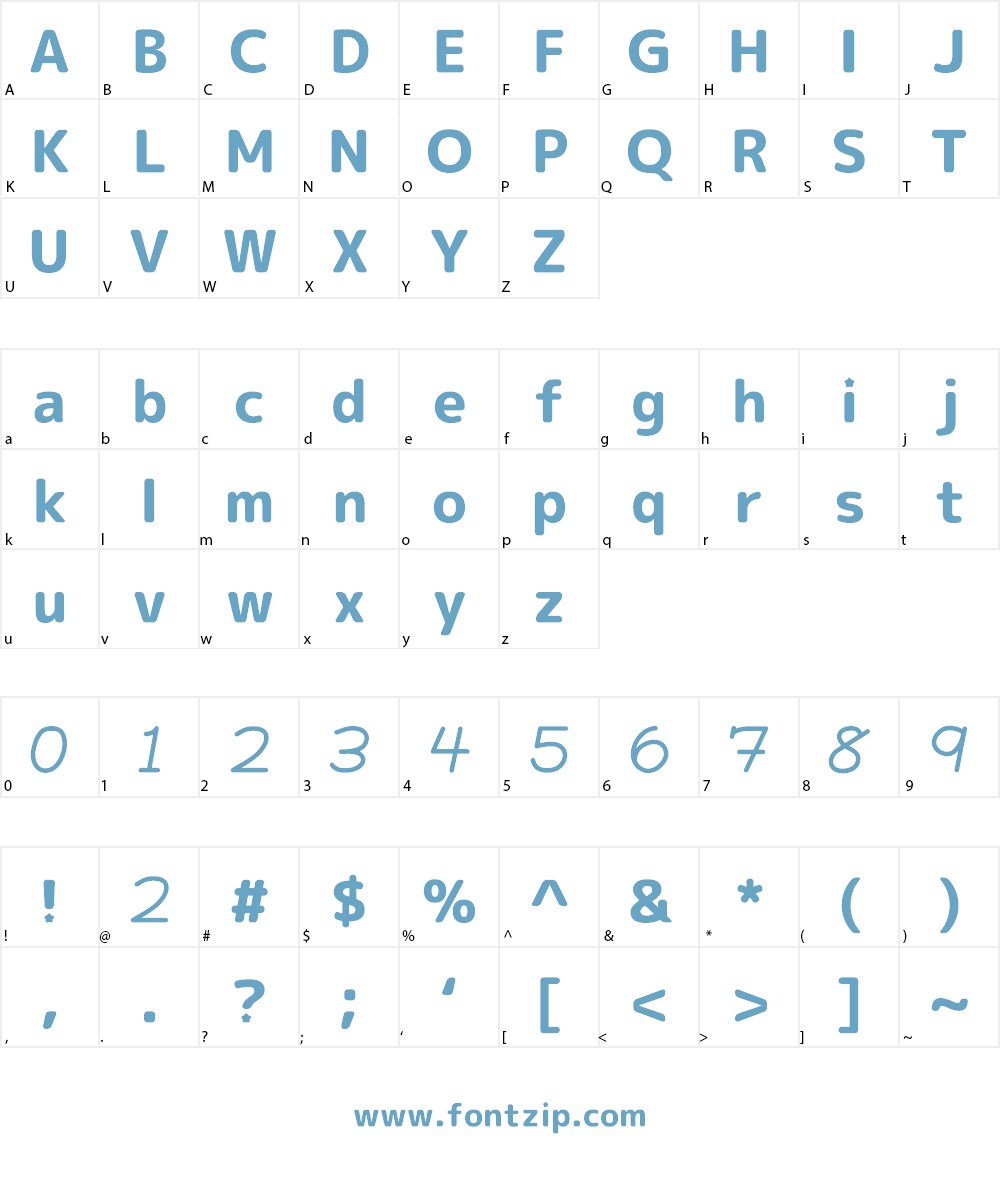
Fairy Muffin Round Pop is a newest gothic-like kids pop font. The kana characters, the Kanji and some symbols are original, but the alphanumerics and most symbols were in Rouned M , Genjuu Gothic and Kosugi Maru. It is best used for display, headlines, children's goodies and non-NSFW works.
UPDATE V1.002:
I replaced the borrowed numerals with the original ones that looks like those of Japanese toys and I added some kanji that was missing some others.
UPDATE V1.003: I forgot to correct one Kanji character!! And I added some more of Kanji characters in it!!